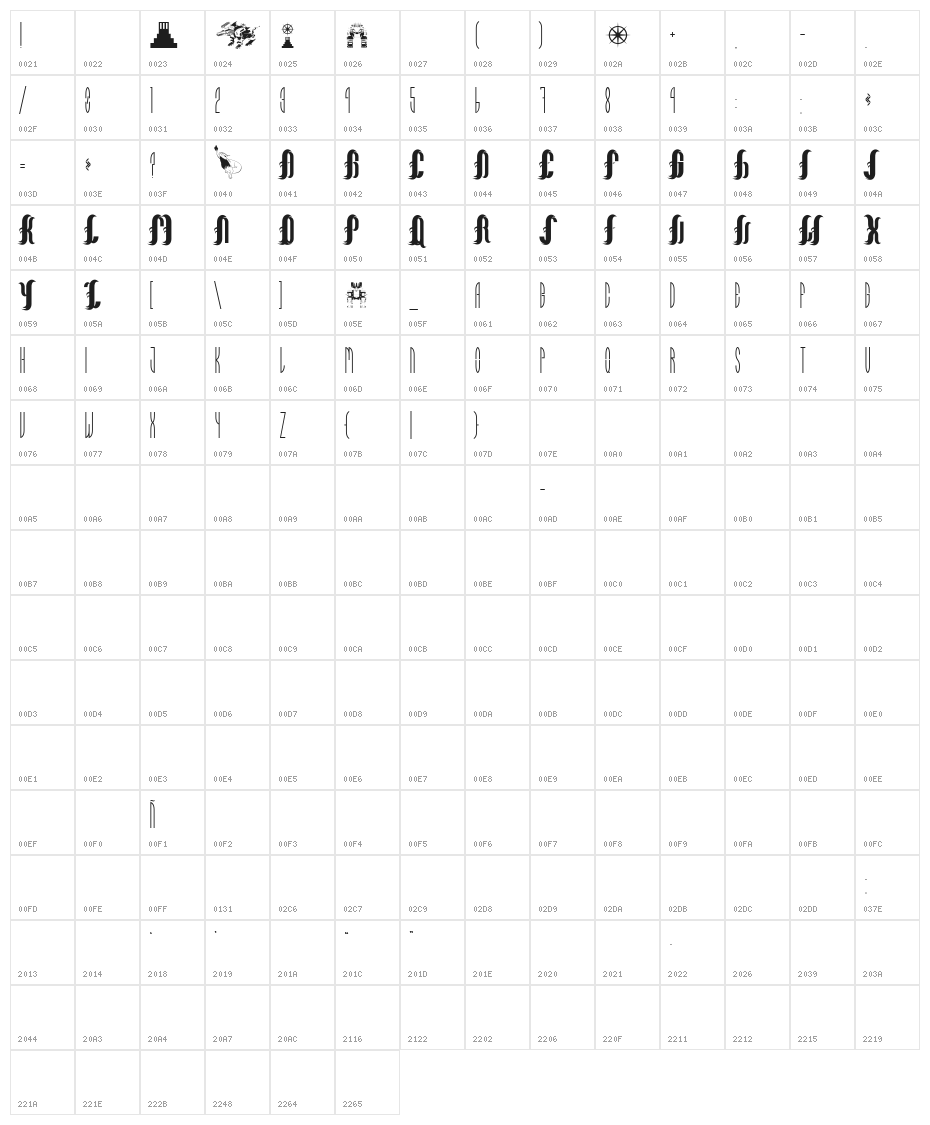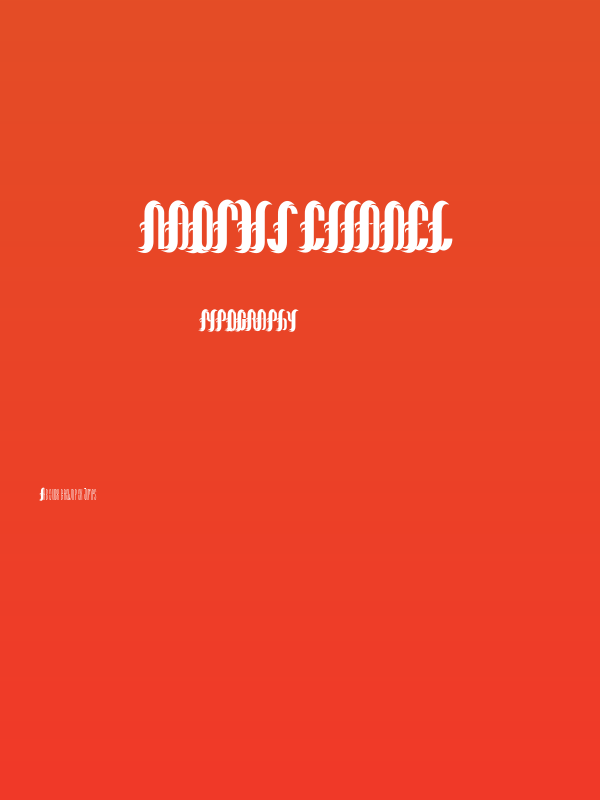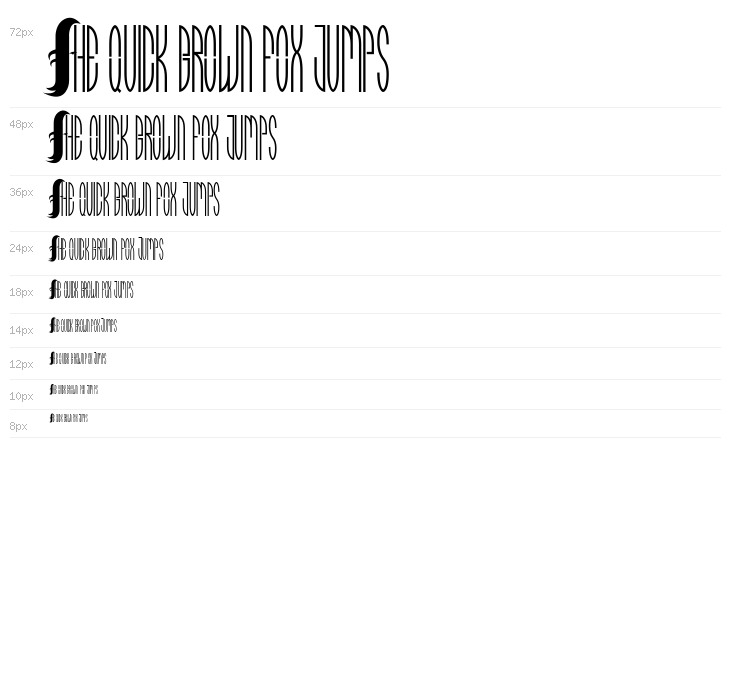
Naomis Citadel Font
This font features a striking and bold design with a high level of contrast between thick and thin strokes. The uppercase letters are particularly ornate, with intricate curves and flourishes that give it a dramatic and imposing presence. The lowercase letters maintain a more streamlined and elongated form, providing a nice balance to the overall aesthetic. The numbers are consistent with the lowercase style, ensuring readability while maintaining the font's unique character. The special characters are creatively designed, adding to the font's decorative appeal. This font is ideal for projects that require a strong visual impact, such as branding, posters, or headlines.
| Proposed Projects | Ideal for branding, posters, headlines, and any project requiring a strong visual impact. |